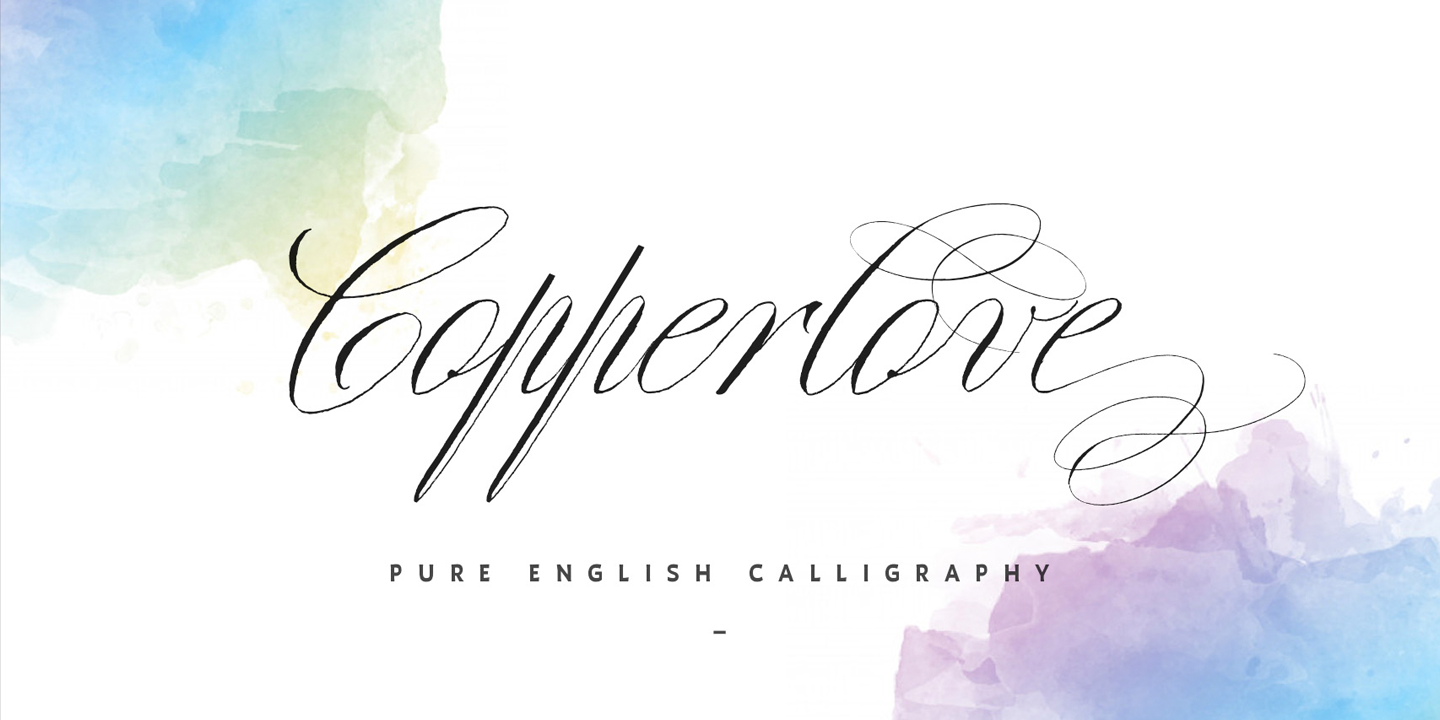
Copperlove Font is perfect for artisan jewelry brands, rustic wedding invitations, craft distillery labels, copper cookware companies, vintage metalwork studios, steampunk-themed venues, handcrafted product packaging, rustic romance celebrations, artisanal metalcraft branding, and warm industrial-chic designs.
Copperlove Font is exciting because it glows with warm metallic romance and artisanal craftsmanship through rich letterforms that capture the lustrous beauty of polished copper and the passionate warmth of handcrafted love, making it perfect for brands celebrating authentic craftsmanship and warm romantic elegance.
The Copperlove Font family includes regular and bold weights with metallic alternates, copper-inspired ornaments, and artisanal decorative elements, providing designers with lustrous tools for creating typography that shines with authentic metalwork beauty and romantic warmth.
When your project needs artisanal romance and metallic elegance, Copperlove Font Free Download delivers the perfect typographic alloy for crafted communications. This warm display typeface combines metalwork tradition with contemporary functionality, ensuring your brands resonate with audiences seeking genuine artisanal quality and romantic craftsmanship. The lustrous letterforms and copper-inspired styling make this font an essential choice for craft businesses, romantic venues, and any application where metallic beauty, artisanal romance, and handcrafted elegance are crucial for establishing credibility and connecting with communities that appreciate the timeless appeal of copper's warm glow and the passionate dedication of skilled artisans who transform raw metal into objects of beauty through the ancient alchemy of fire, skill, and love.